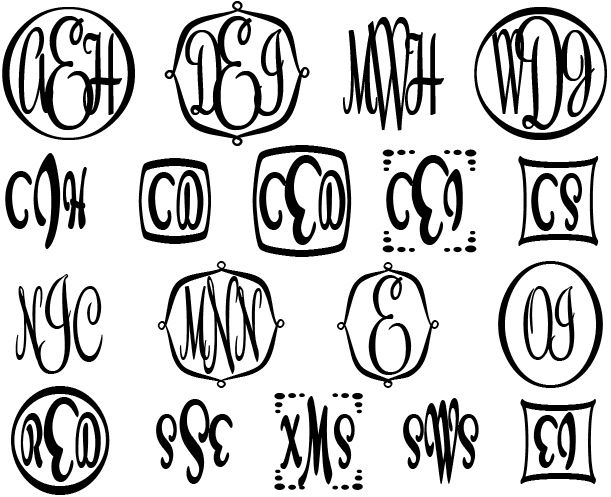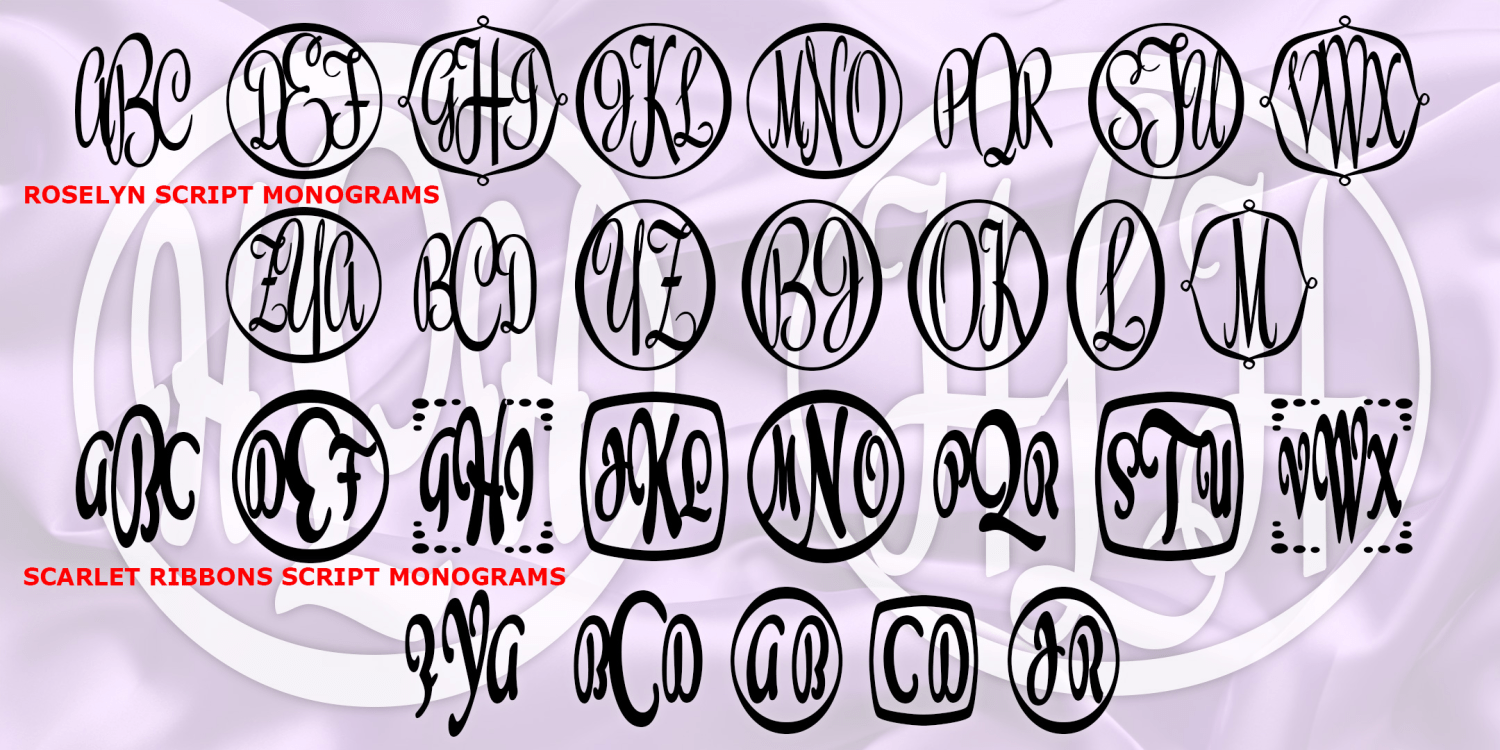
Script Monograms
SCRIPT MONOGRAMS is a set of two fonts to create custom monograms in two different script styles: Roselyn and Scarlet Ribbons. Roselyn is graceful, Scarlet Ribbons is bold. You can make 2- or 3-letter monograms with a choice of frames in each font; Roselyn…